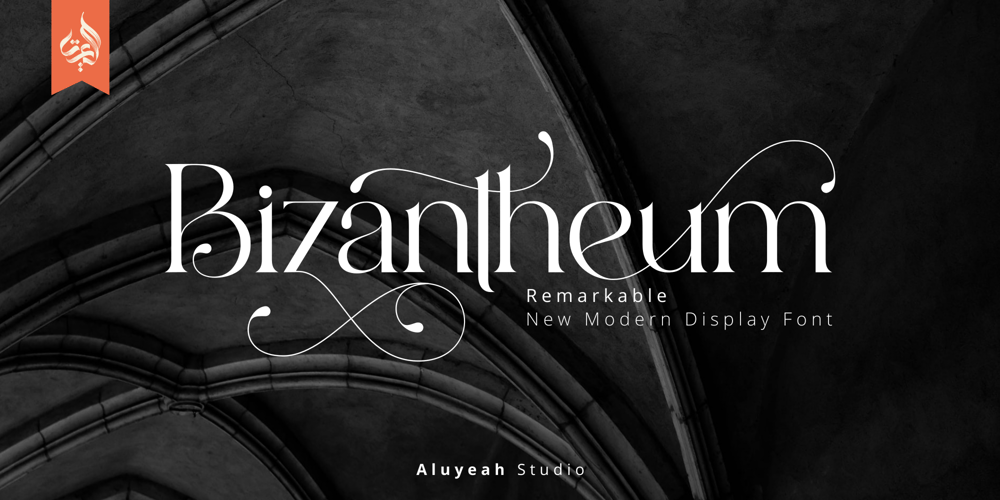
Al Bizantheum Font Family was designed by Linggar Sundoro and published by Aluyeah Studio. Al Bizantheum contains 1 styles and family package options. Bizantheum, remarkable new modern display font. Inspired by the majesty and mystique of the Byzantine era buildings. Coming with 130+ stunning and super easy to use alternates. Very suitable for magazine, headline, website, ads, product package and all type of design project you have. Features:OpenType supportMultilingual support (15 languages)PUA EncodedSuper Easy to Use alternates – It’s OpenType support but you can easily call alternates character using special combination like A.2 R.3 h.5 etc. so you don’t need special software. To get results like the preview just type B.3iz.2ant.2he.2um